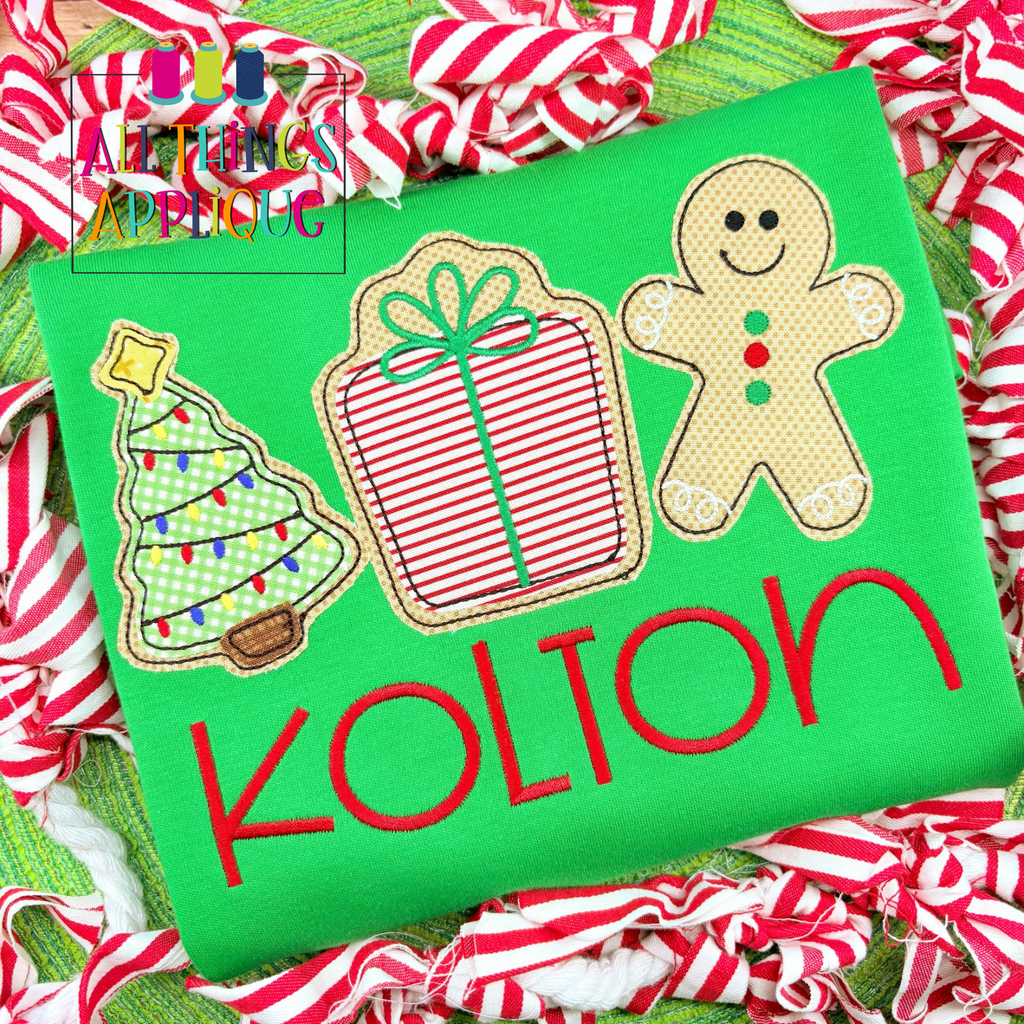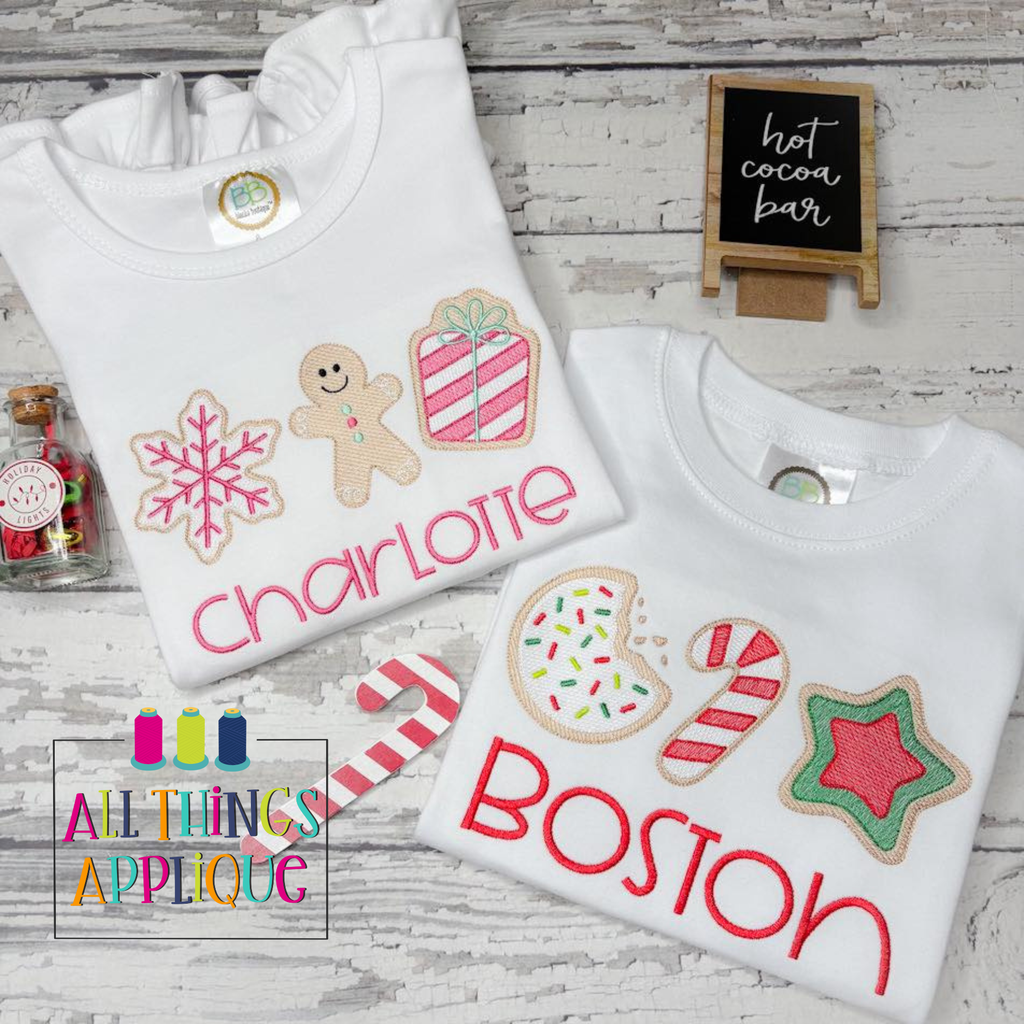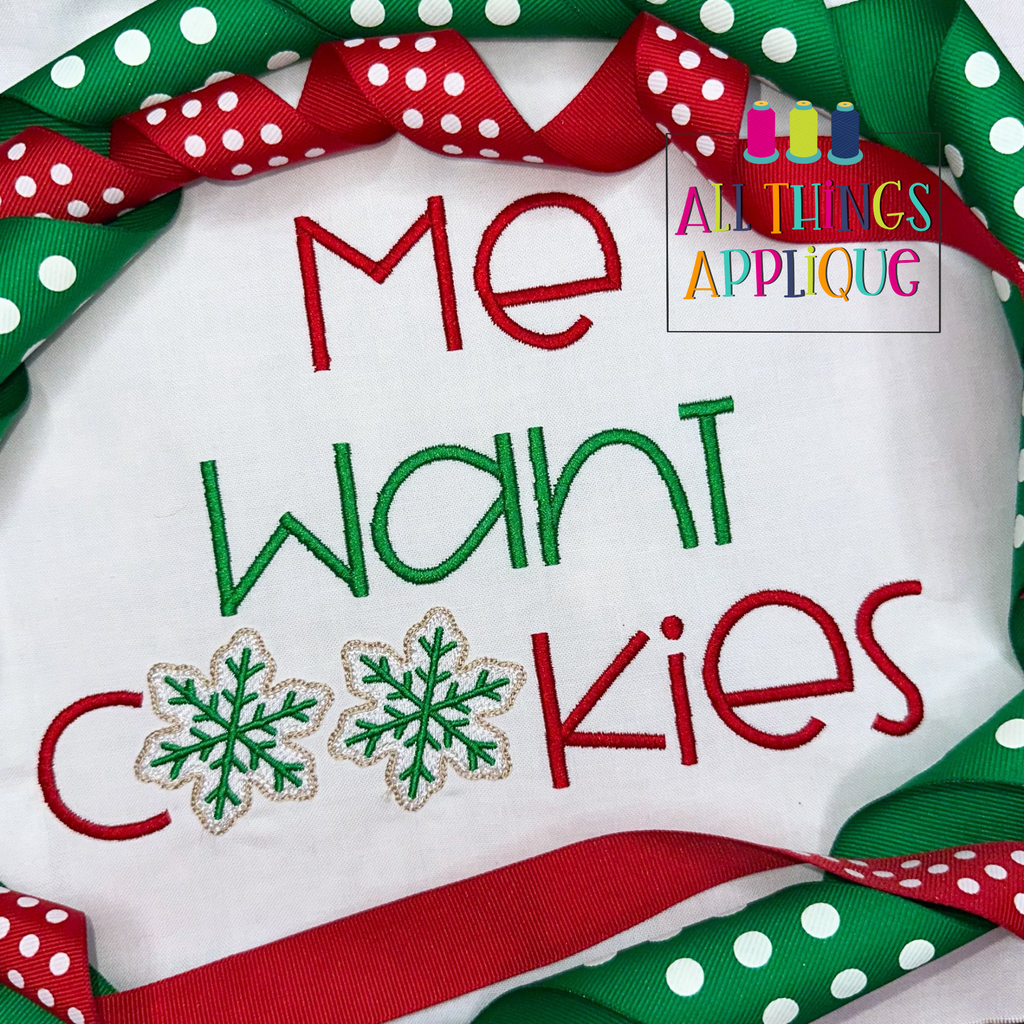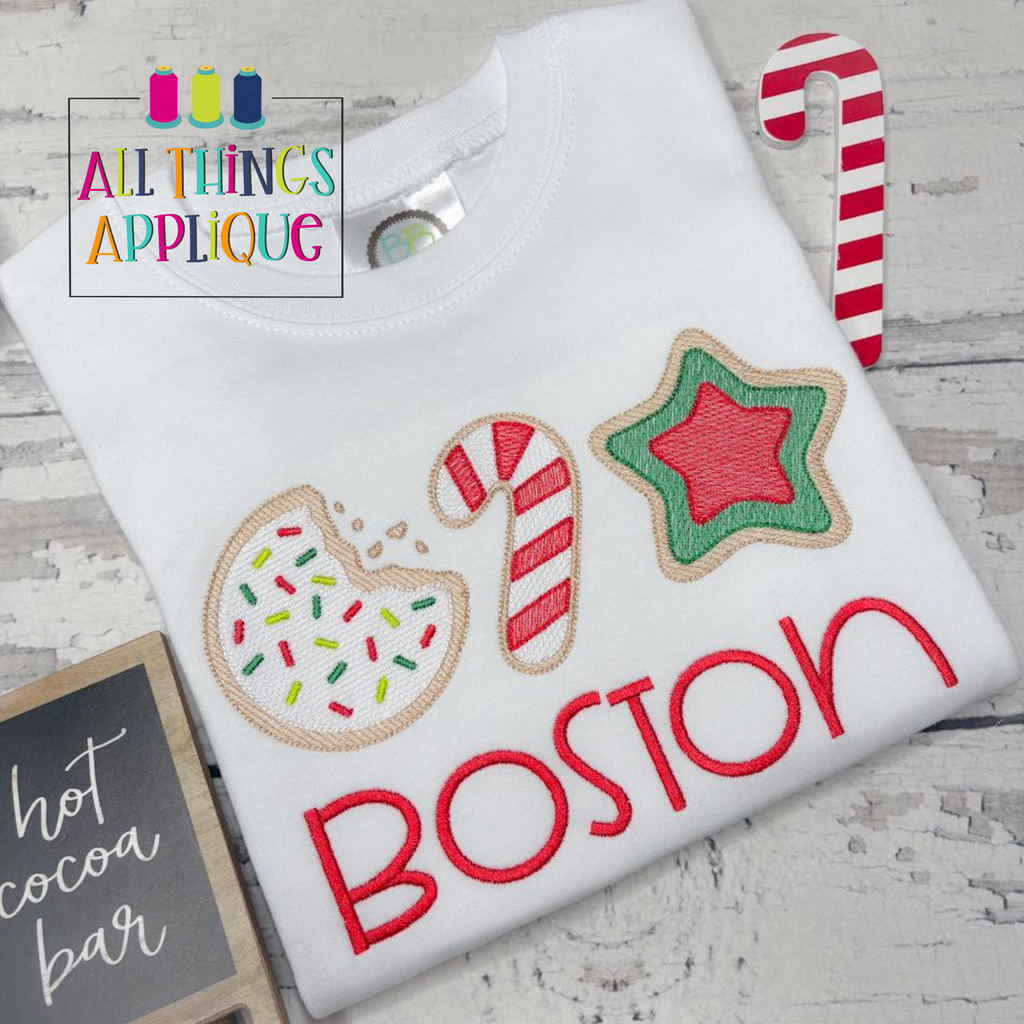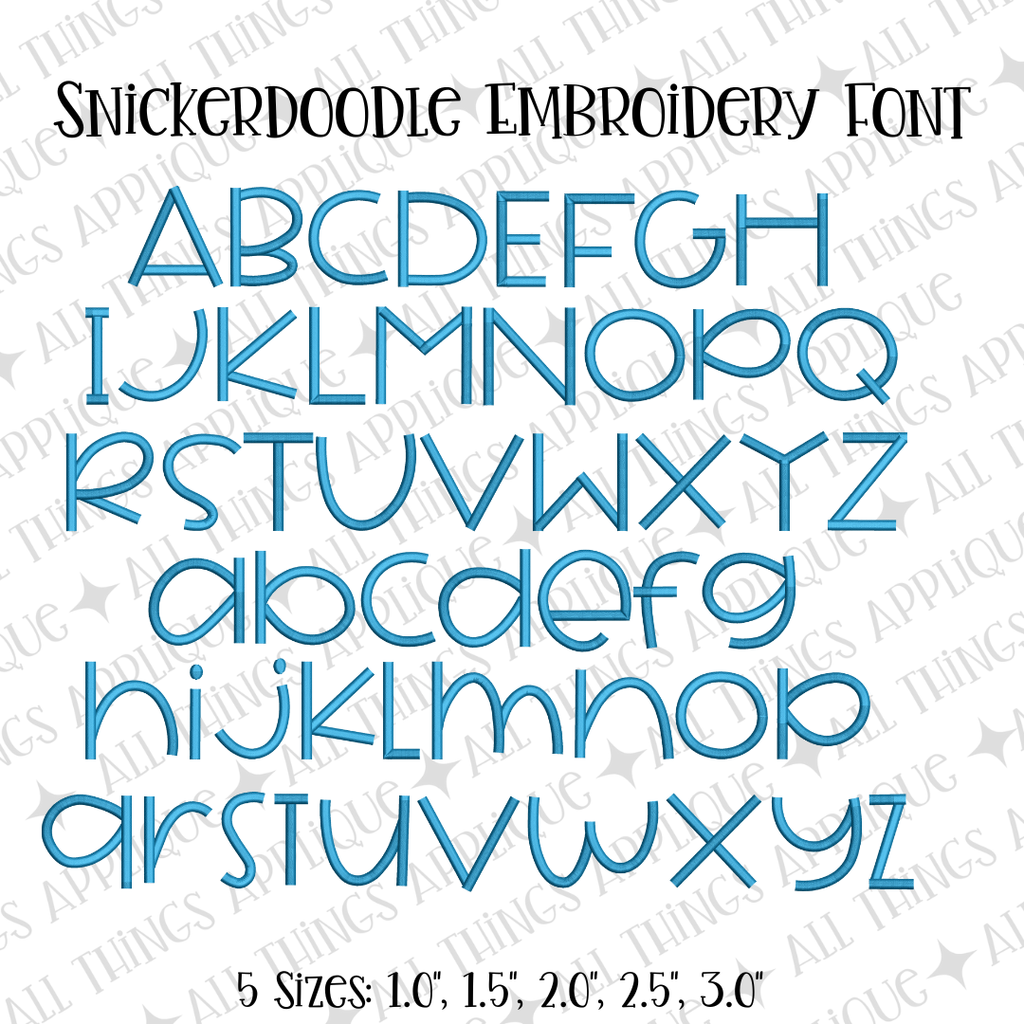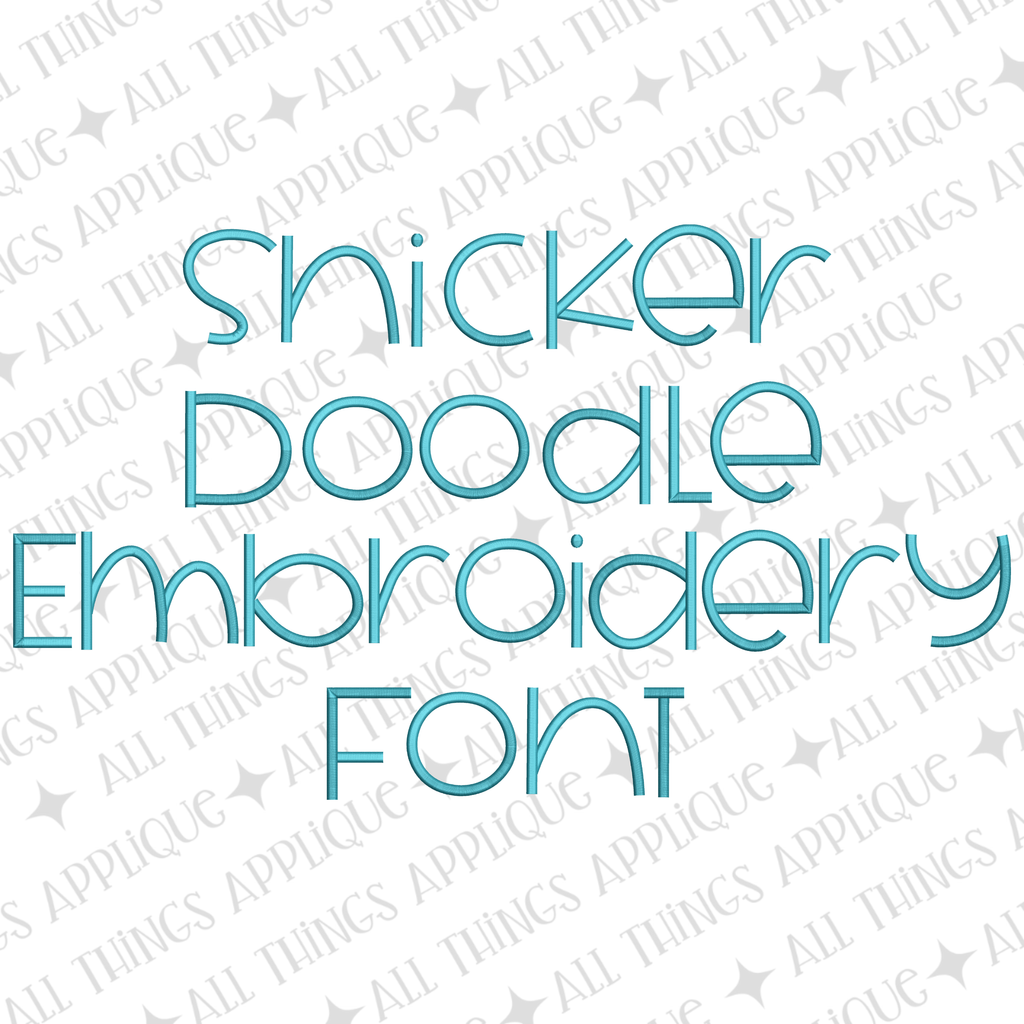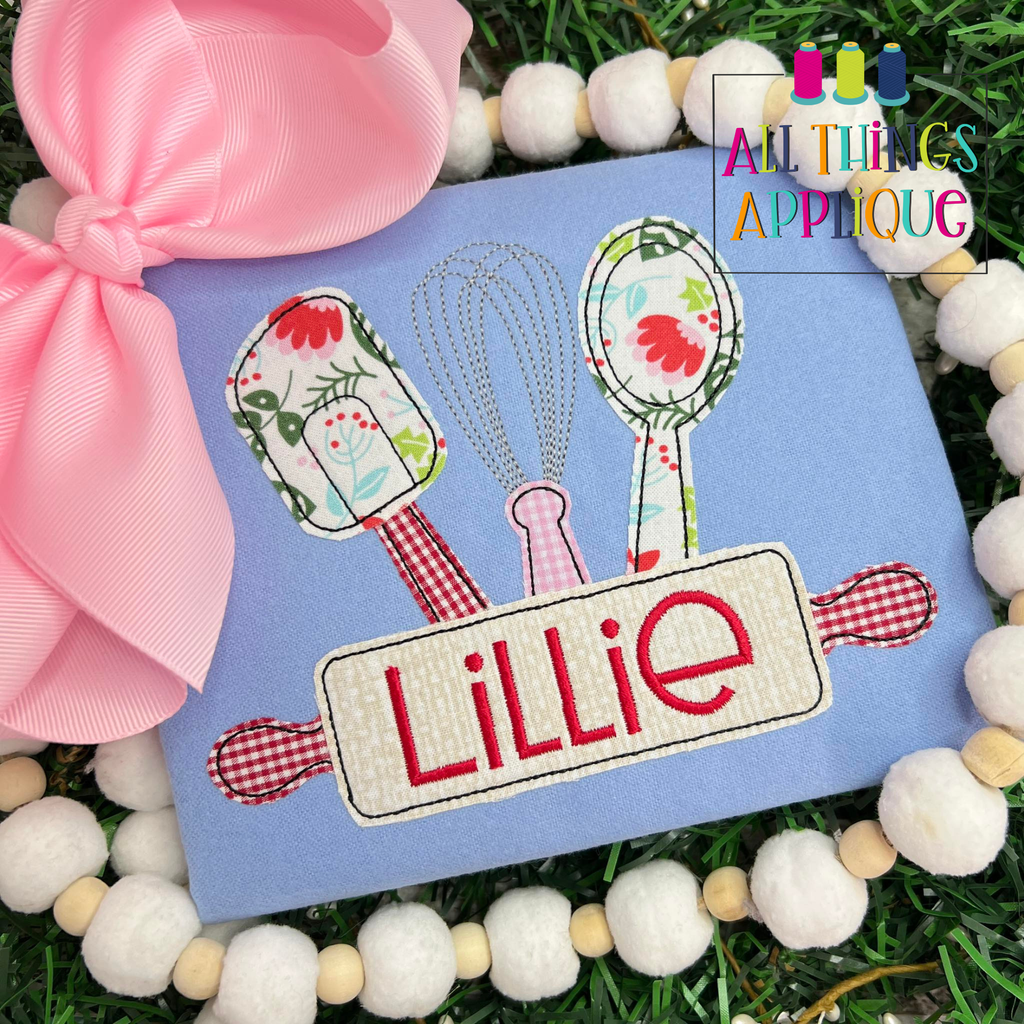
About the Snickerdoodle Embroidery Font
Snickerdoodle is a delightfully sweet embroidery font that brings charm to any project! This wide unicase font works beautifully for both girls and boys, making it perfect for personalizing clothing, accessories, and home décor. Whether you're stitching names on baby gifts, decorating sports gear, or adding flair to tote bags, Snickerdoodle's stitches smoothly and looks fantastic at any size.
This font includes 26 uppercase and lowercase satin stitch letters.